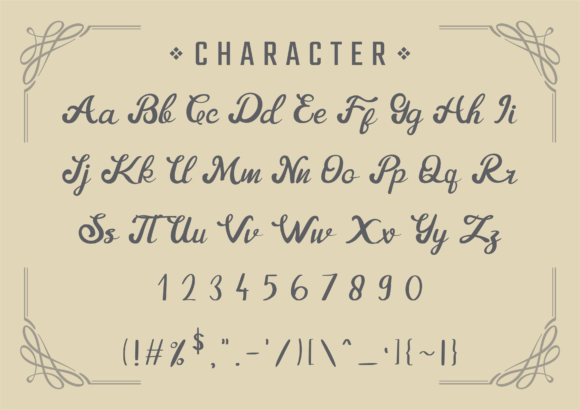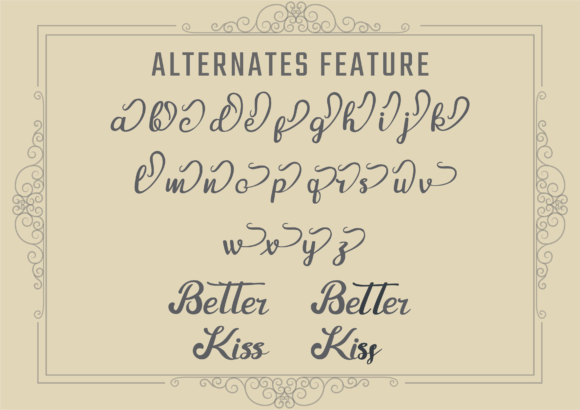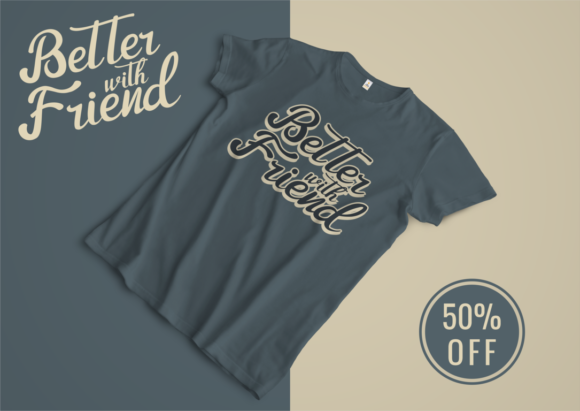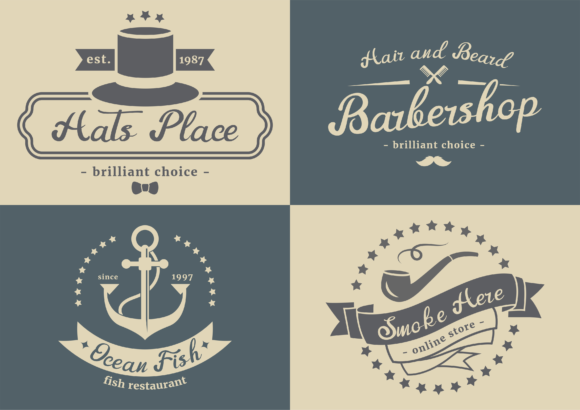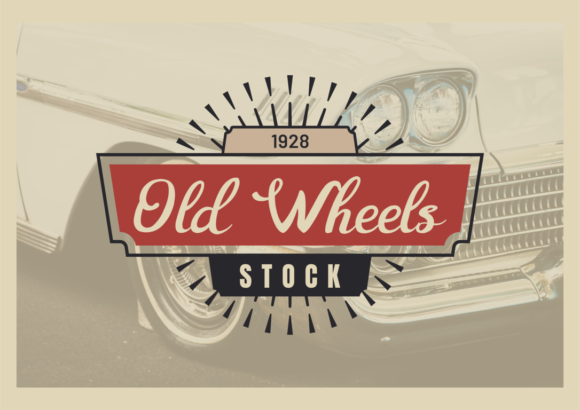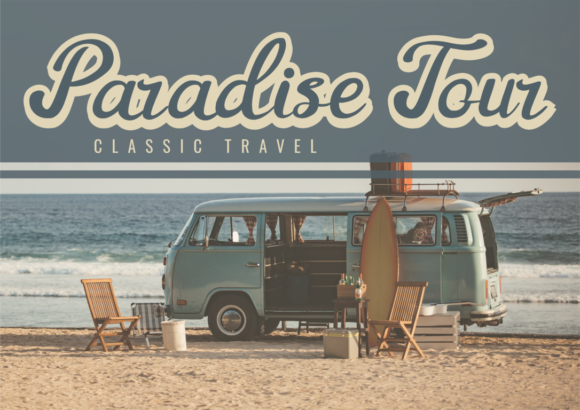
Introduction to Semtain Font
Semtain is a unique and elegant handwritten font.
It looks beautiful on a variety of designs requiring a personalized style, such as wedding invitations, thank you cards, weddings, greeting cards, logos and so on This font is PUA encoded which means you can access all of the beautiful glyphs and swashes with ease.
Key Features of Semtain Font
Why Choose Semtain Font?
Semtain Font offers exceptional quality and versatility, making it a valuable addition to your design toolkit. Whether you’re creating for personal projects or commercial use, Semtain Font delivers professional results.